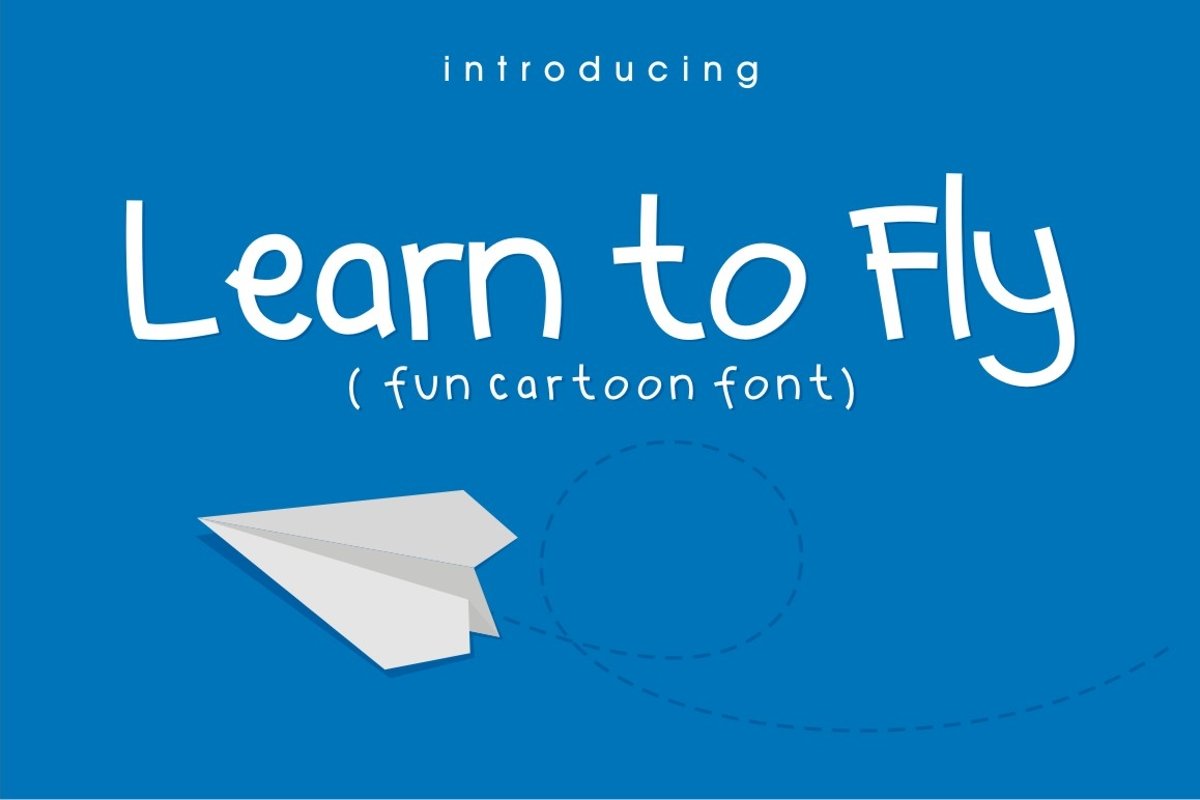
Created By Vableworks
Learn to Fly - Fun Cartoon Font
The Learn to Fly is a simple font in cartoon style. It will add a fun and playful feel to your designs.